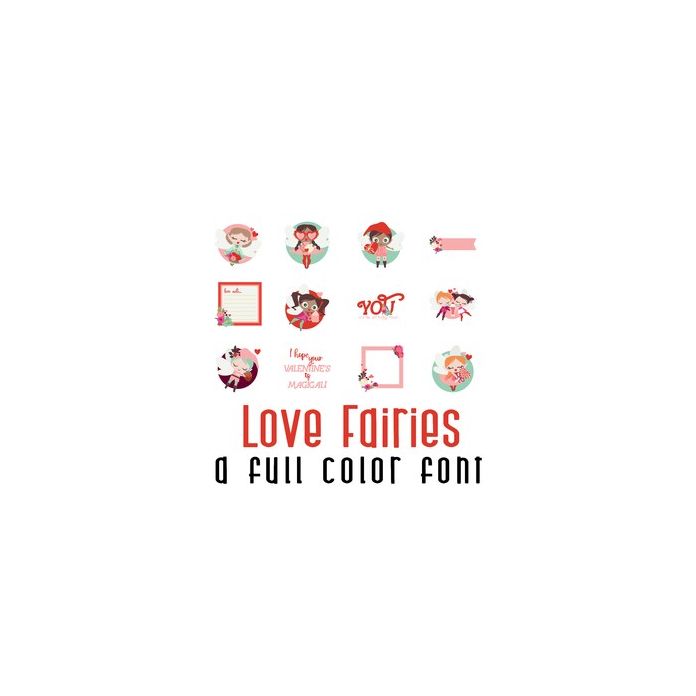
This adorable full-color doodlebat font features 26 beautiful love fairies, florals and puns. Perfect for cards, crafts, gifts, decor, scrapbook pages, planner stickers, and more!